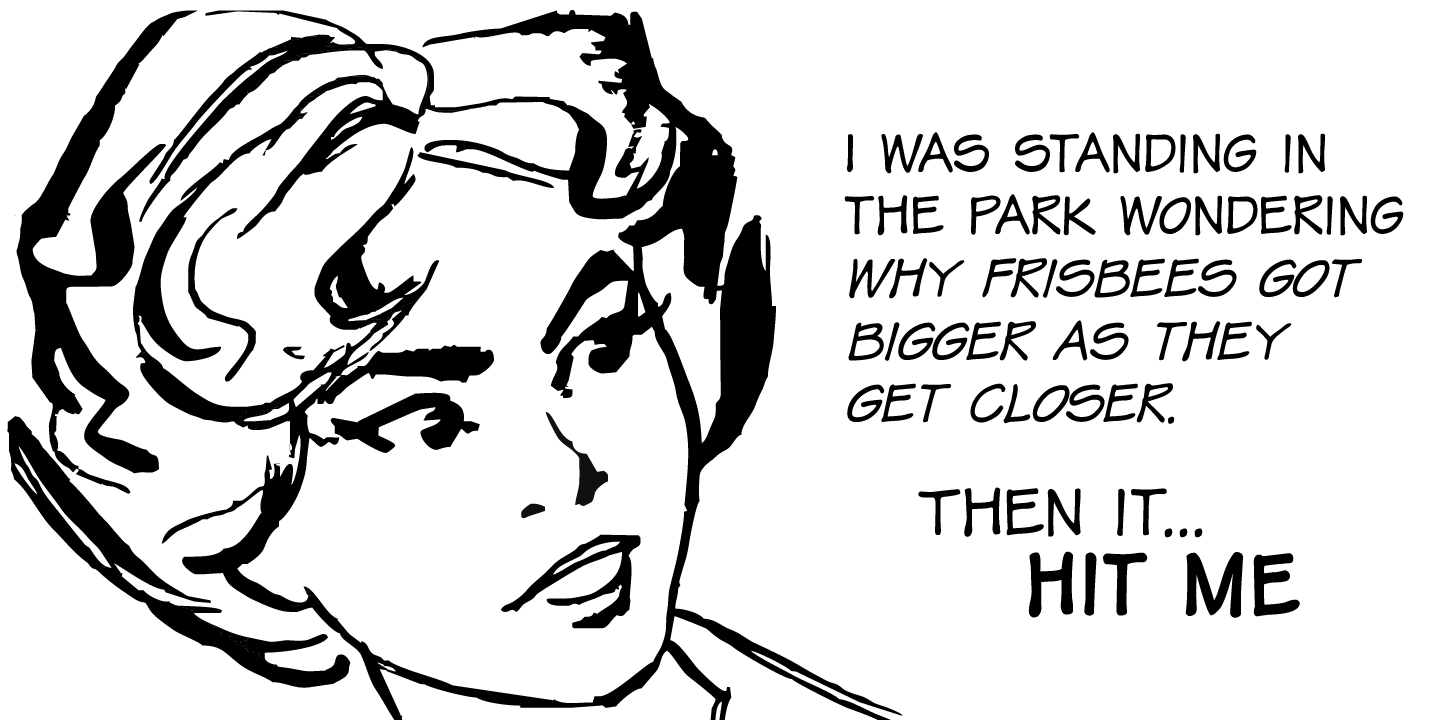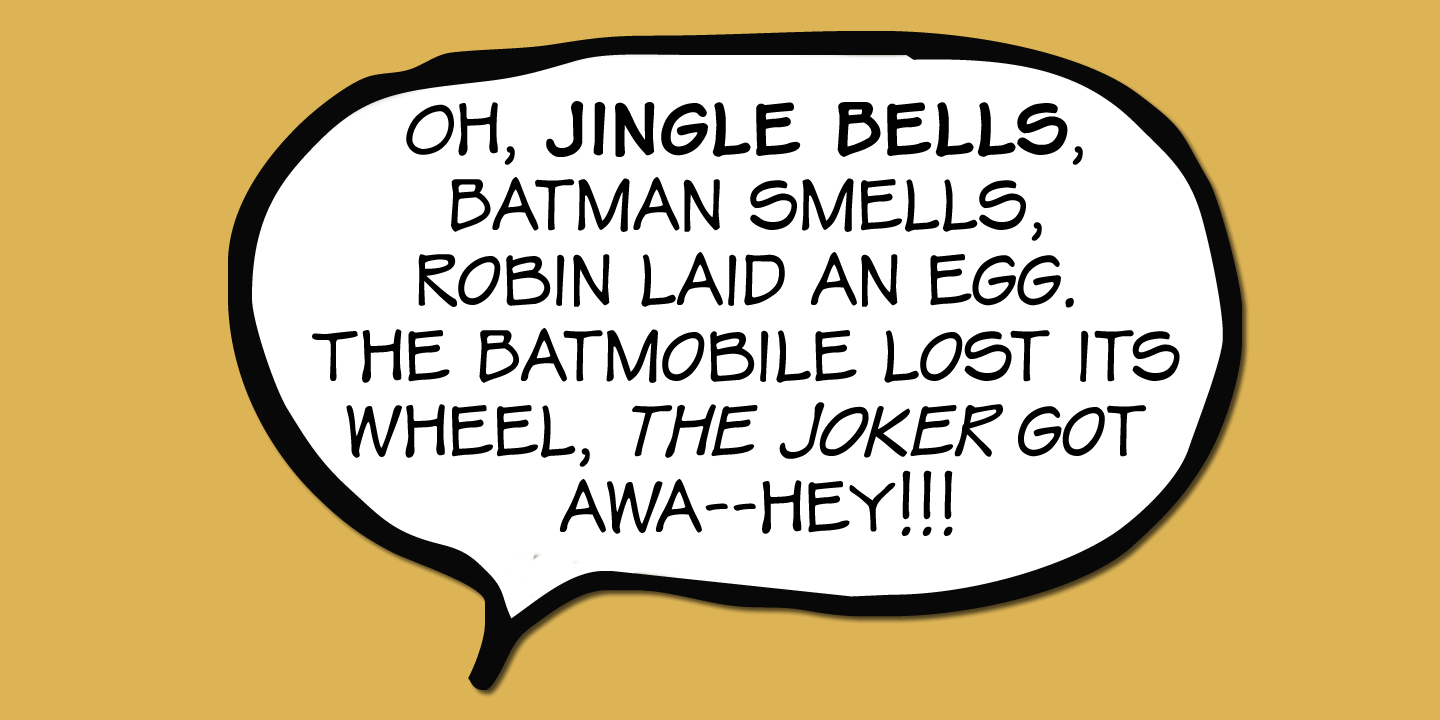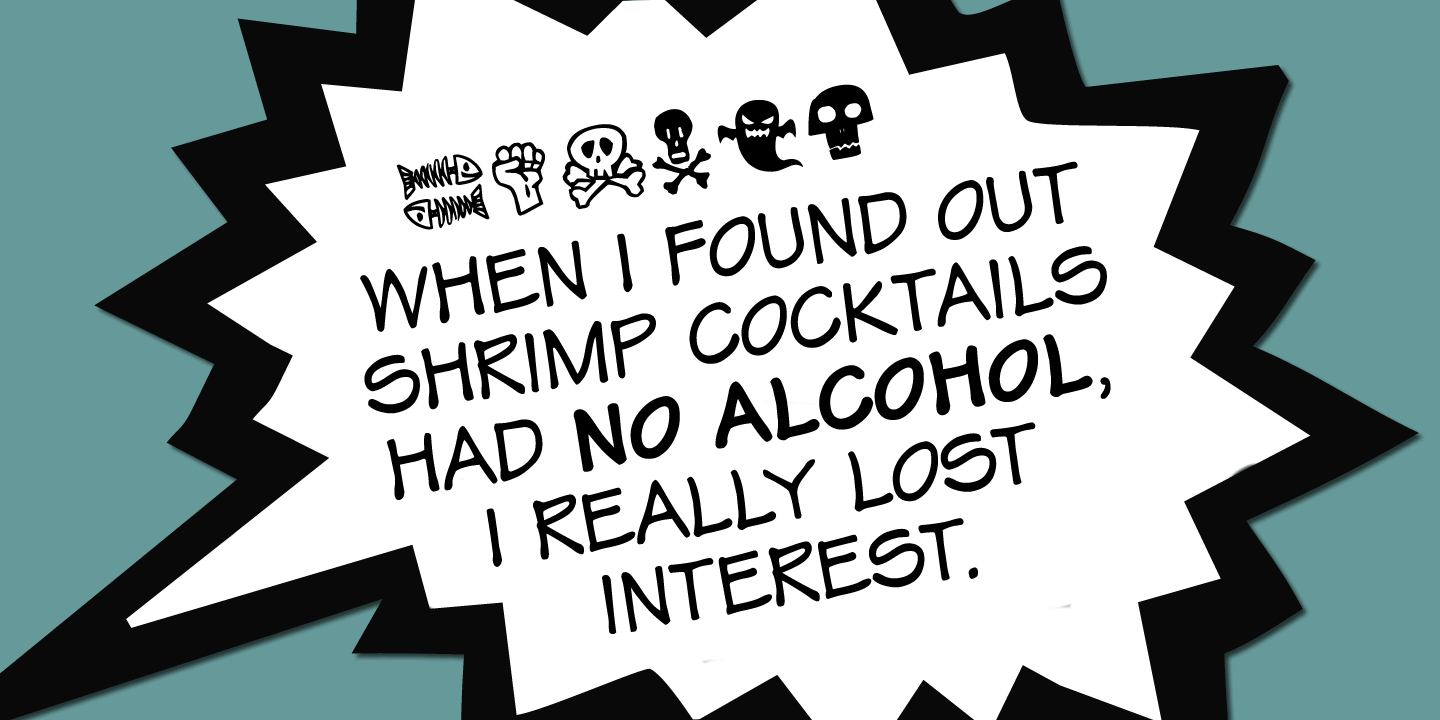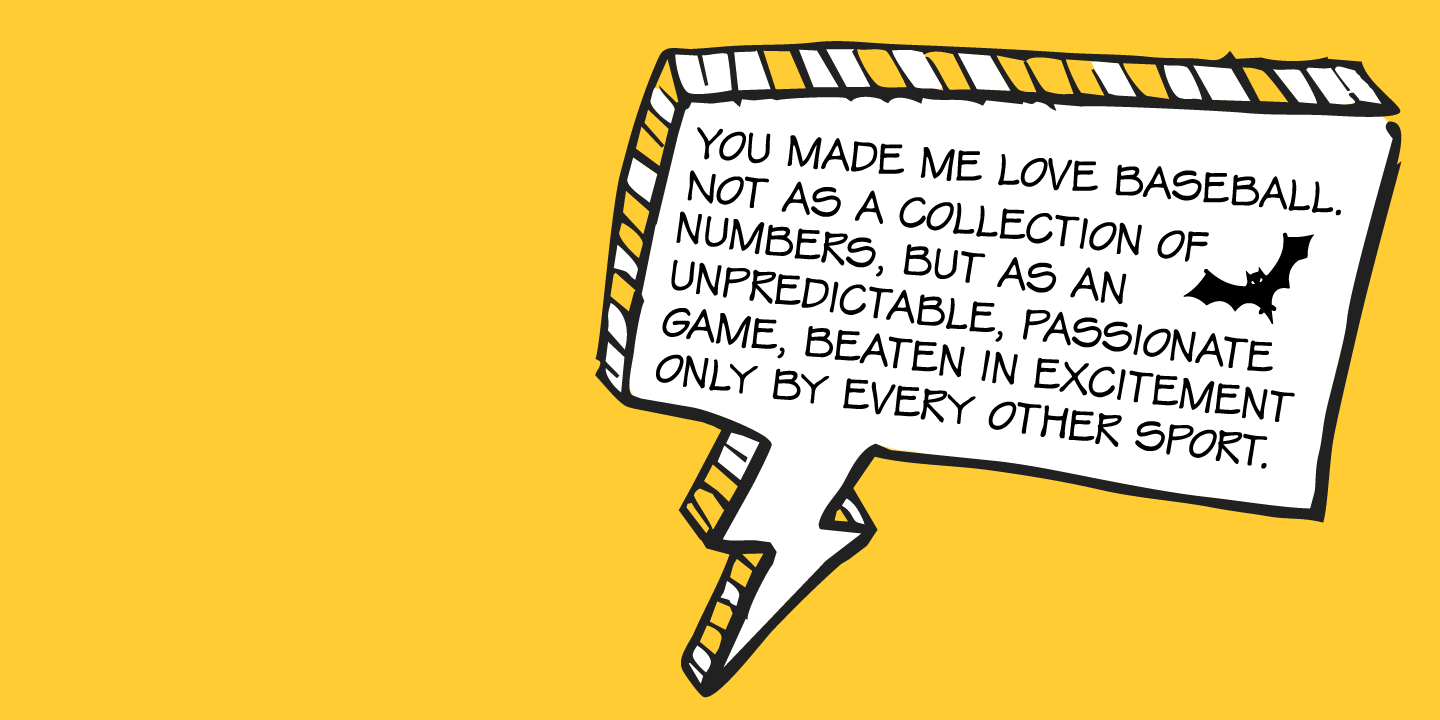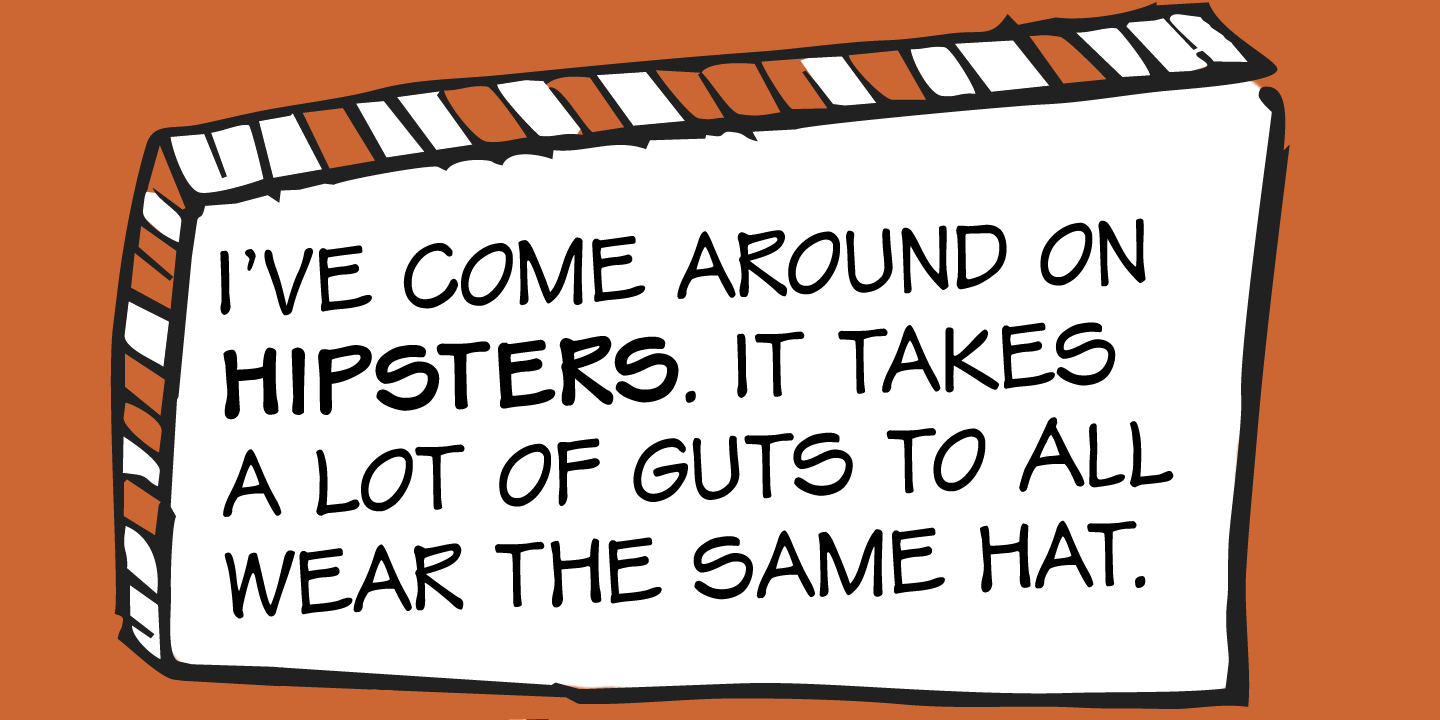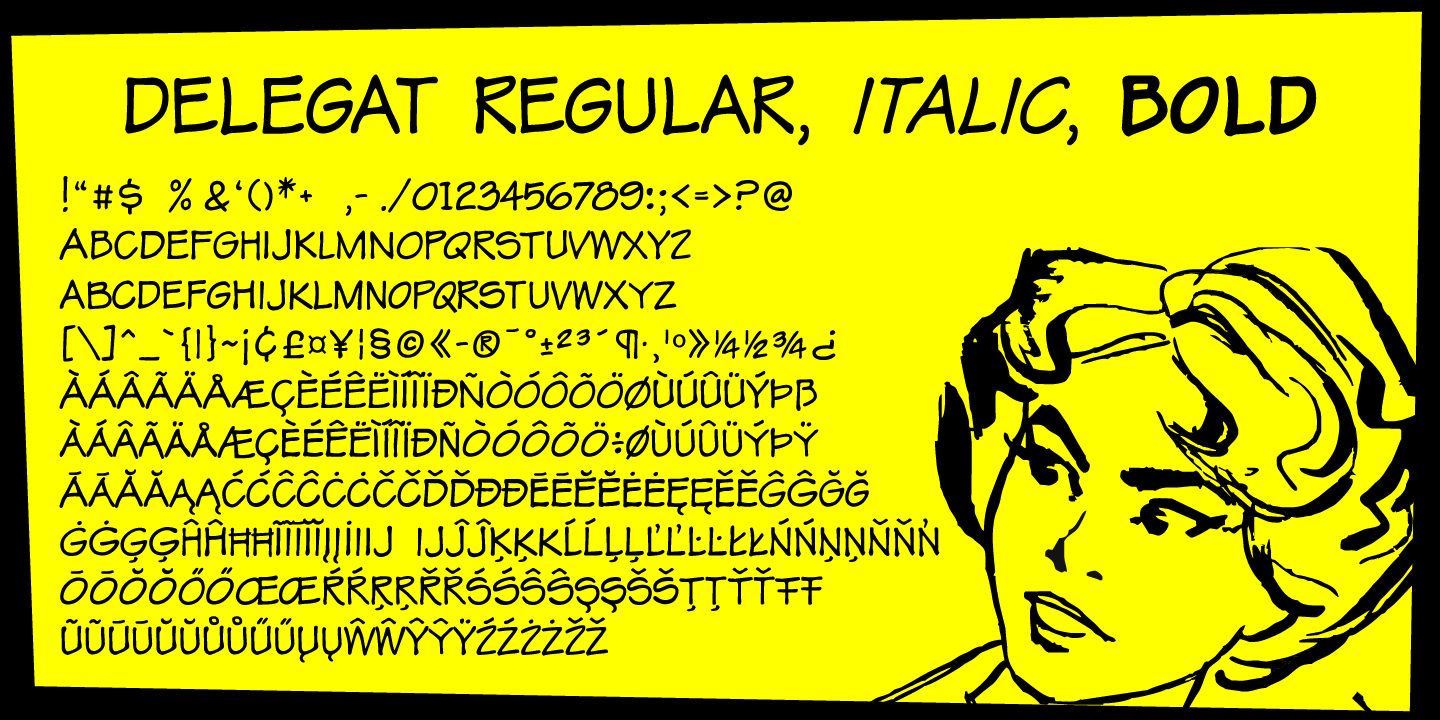
About Delegat
Delegat is a comic book lettering font inspired by handwritting of Frank Ching. The family includes Regular, Italic and Bold version. Delegat contains two variations for each letter and ligatures to swap out any two identical letters that appear next…